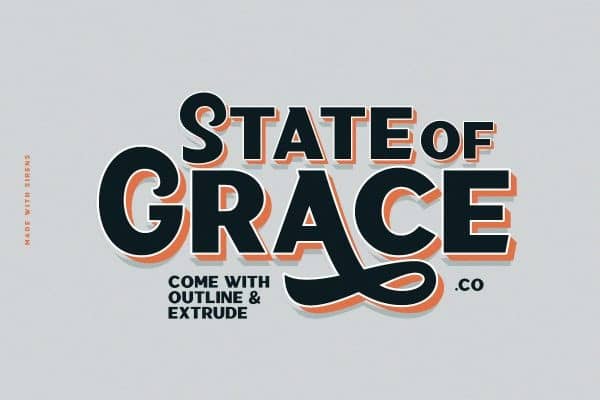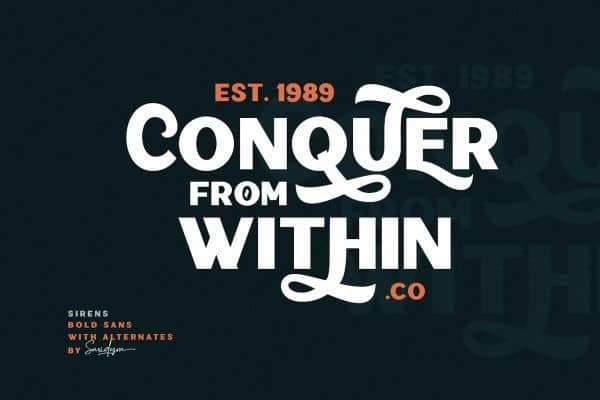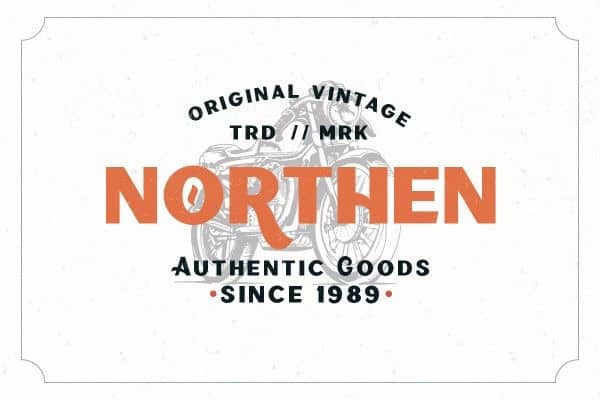
Sirens Sans Serif Font
Sirens Sans Serif Font an incredibly Unique and Interesting sans serif typeface. It is a casual and modern sans manufactured by Saridezra. The special things is this font comes with alternates in each lowercase! Every alphabet have alternates up to 3 kinds! This font fits in any project. Strong for your headline. You can use it for a tittle, logo, quotes, or become a pairing in any font. This font also support multi language! Also already PUA Encoded.